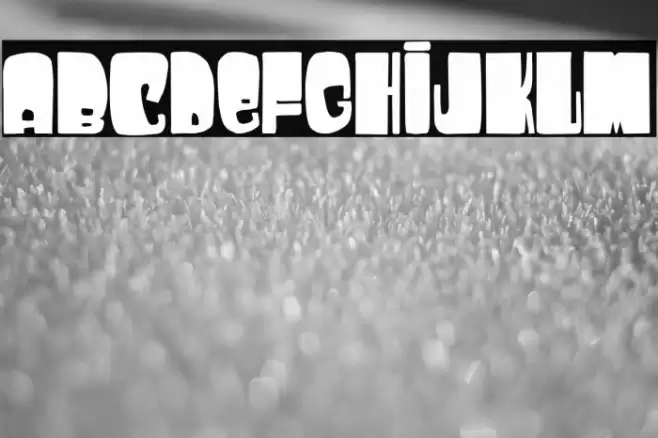
Pacheco's Boulevard Font
Pacheco's Boulevard Description
This font features a bold and striking design with thick, blocky characters that convey a sense of strength and impact. The letters are uniformly wide, creating a cohesive and powerful visual presence. The uppercase and lowercase letters maintain a consistent style, with slight variations in the curves and angles that add a touch of uniqueness. The numbers are equally bold, ensuring they stand out prominently. Special characters are designed to match the overall aesthetic, contributing to the font's cohesive look. This font is ideal for projects that require a strong, attention-grabbing typeface.
A bold, blocky font with a strong and impactful design from Uncategorized fonts.
- Proposed Projects: Ideal for posters, headlines, logos, and any design needing a bold statement.